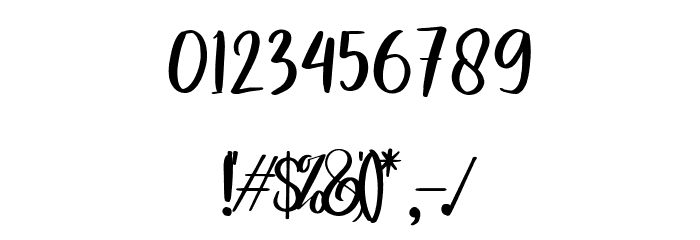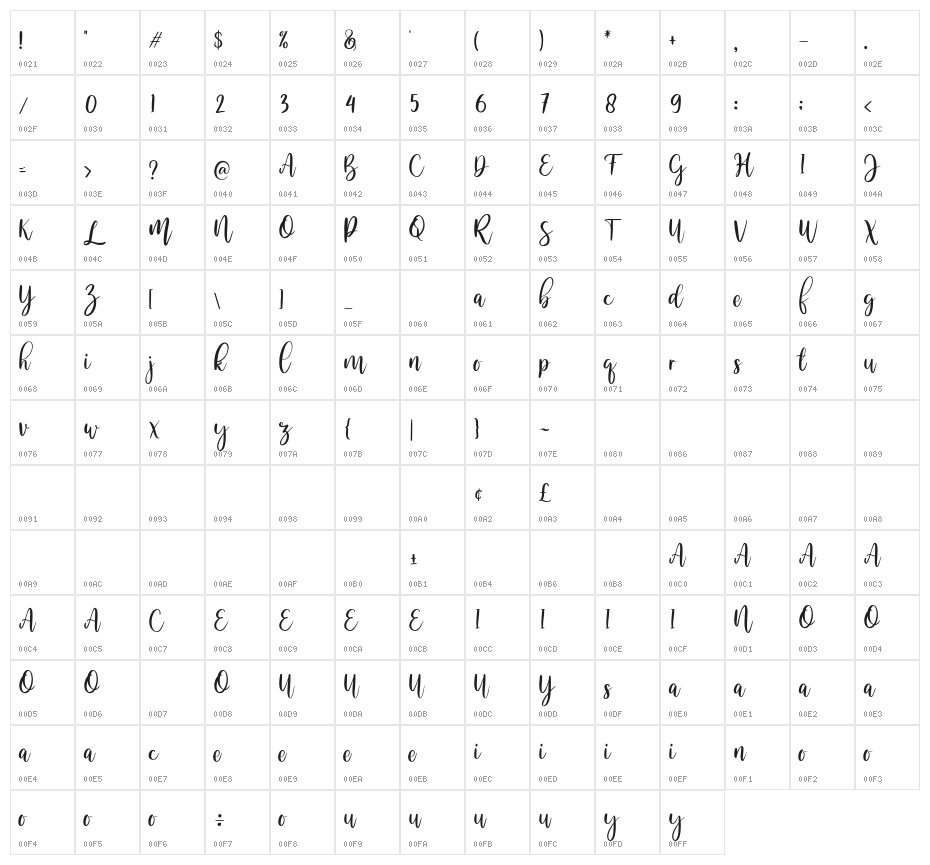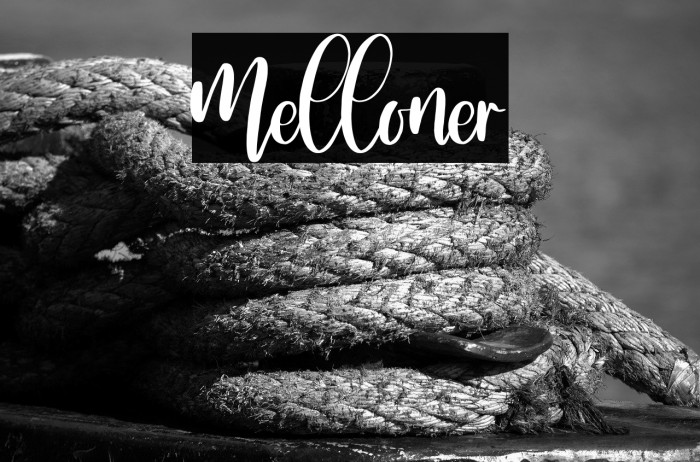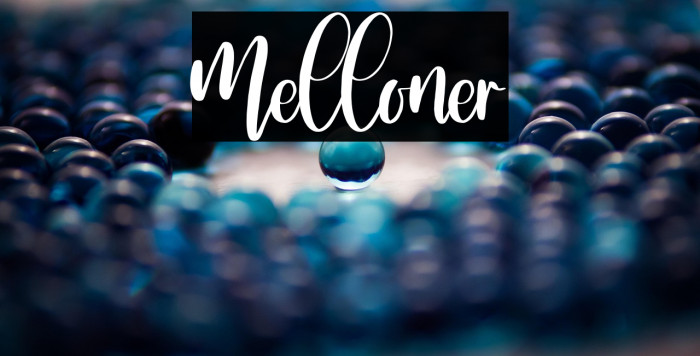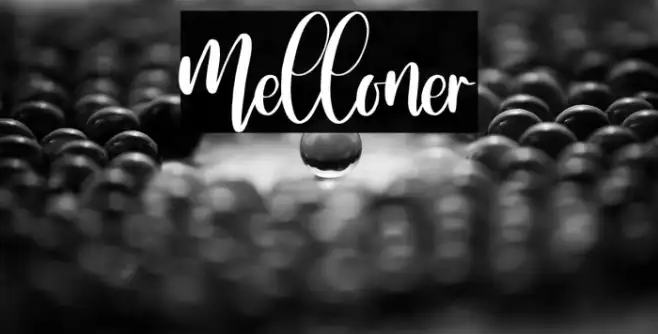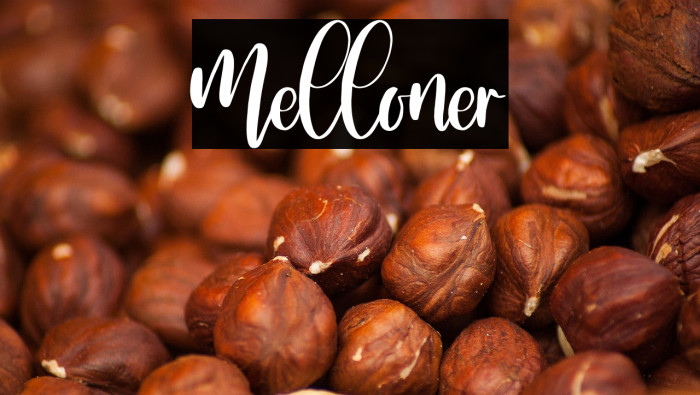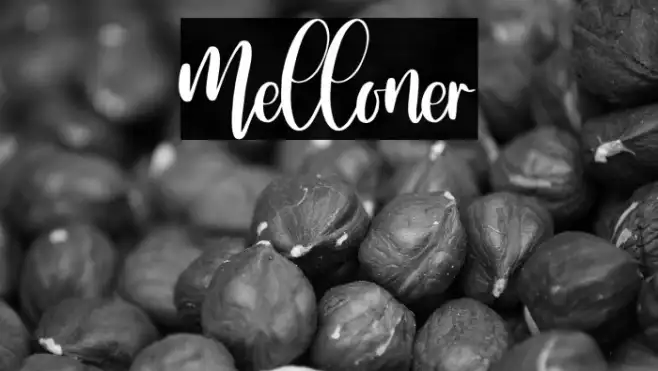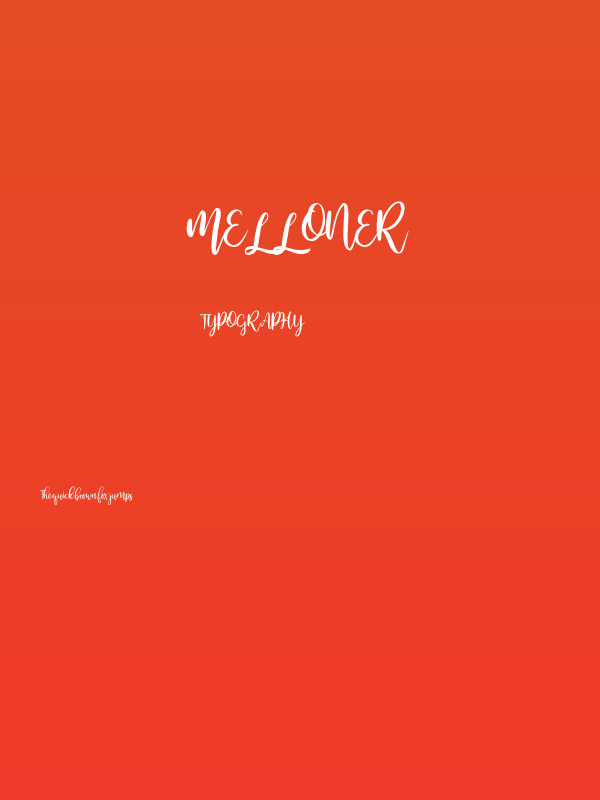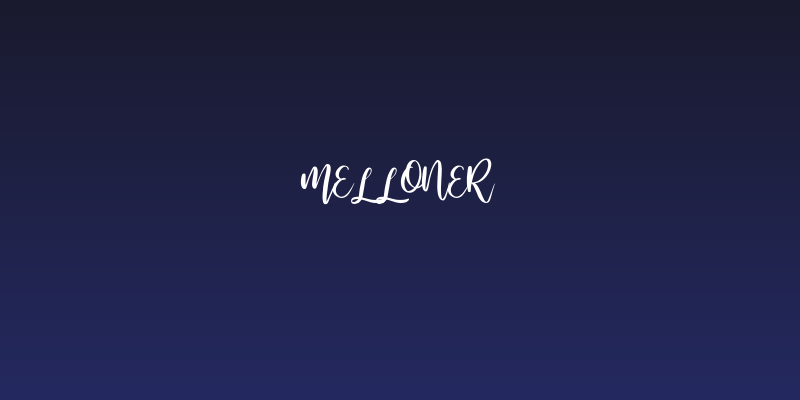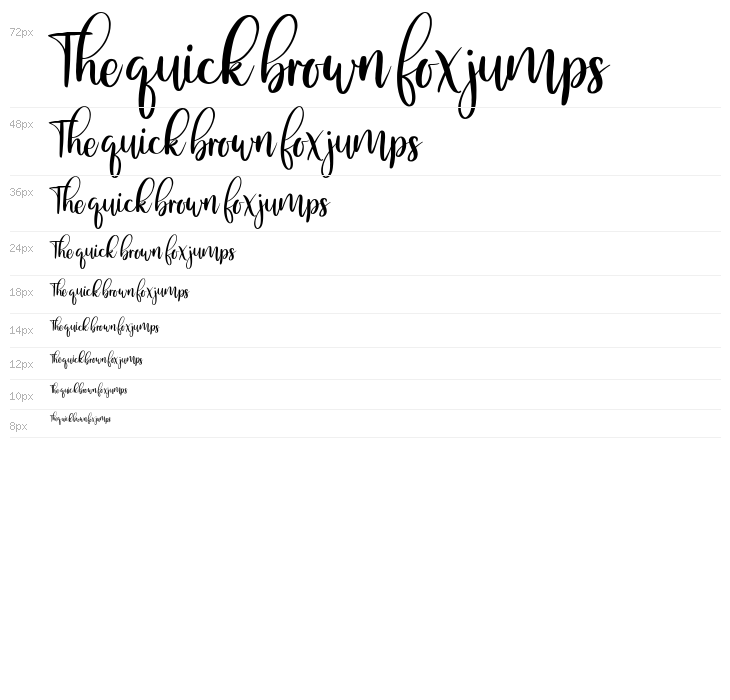
Melloner Font
Melloner Description
This font features a flowing, cursive style with elegant loops and swashes, giving it a handwritten appearance. The letters are connected, creating a seamless and fluid look. The uppercase letters are bold and expressive, while the lowercase letters maintain a consistent rhythm and balance. The numerals and special characters are designed to complement the overall script style, adding to its cohesive aesthetic. This font exudes a sense of sophistication and charm, making it ideal for creative and decorative uses.